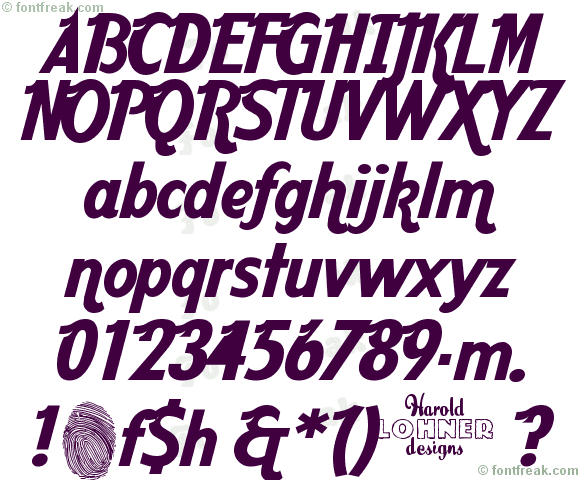
Aardvark Cafe
Aardvark Cafe, designed by Harold Lohner, is a striking display font that captures attention with its unique character. This font falls under the decorative category, offering an artistic flair that is both playful and bold. The design draws inspiration from the iconic hard rock logo, making it an ideal choice for projects that require a touch of edginess. With its distinct stroke weight and moderate contrast, Aardvark Cafe features a combination of thick and thin lines that create a dynamic visual impact. The spacing is well-balanced, allowing for clarity and readability, while the playful curves and whimsical flourishes add a decorative element that enhances its overall appeal.
This font is particularly well-suited for a variety of creative applications. It can elevate restaurant menus, giving a casual yet sophisticated vibe that invites patrons to explore the culinary offerings. Additionally, Aardvark Cafe shines in movie posters, where its bold presence can effectively convey the theme and mood of the film. Graphic designers will find it a valuable asset for branding projects, especially for businesses aiming to capture a youthful and energetic audience. It also works wonderfully for event promotions, such as casual gatherings or music festivals, where a vibrant aesthetic is essential.
The target audience for Aardvark Cafe includes graphic designers, small business owners, and content creators looking for a distinctive typeface that stands out. Aardvark Cafe font free download allows users to incorporate this unique style into their projects without any financial commitment. In a world where typography can make or break a design, Aardvark Cafe distinguishes itself with its lively and memorable character, making it an essential choice for anyone seeking to make a statement.